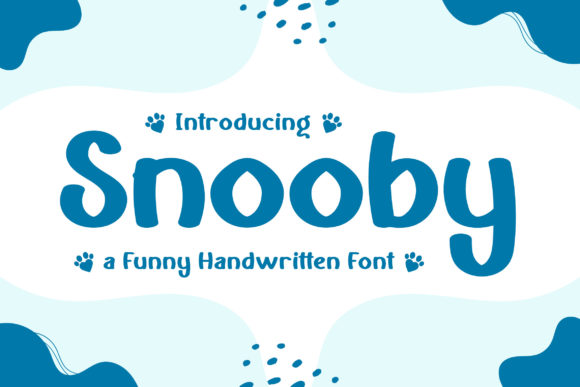
Step into a world of fonts where creativity dances with captivating designs. Meet Snooby Font, the display font that ignites your imagination with its playful and contemporary vibes. Typefactory, the mastermind behind this typographic gem, has poured their heart and soul into crafting a font that stands out in any context.
Snooby Font is the epitome of versatility, with a character set that effortlessly blends with busy backgrounds and shines brightly as a standalone headline. Picture your words dancing across the screen, captivating your audience with their playful energy and infectious charm. Unleash your creativity and let Snooby Font guide you to new heights of typography.
Dive into a sea of carefully crafted characters, each meticulously designed to evoke emotions and make a lasting impact. Snooby Font's enchanting curves and sharp edges create a visual symphony that resonates with your audience. Transport your readers to a world of whimsy and delight with every letter, whether you're designing a captivating book cover, crafting an engaging poster, or weaving a magical logo.
With Snooby Font, you'll discover a font that sparks conversations, ignites imaginations, and leaves an enduring impression. Embrace the power of typography and let Snooby Font elevate your creative projects to new heights. Download Snooby Font today and embark on a journey of boundless creativity, where your words will dance with joy and your designs will captivate hearts.